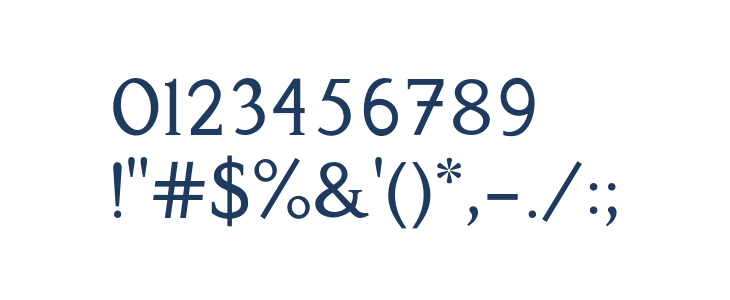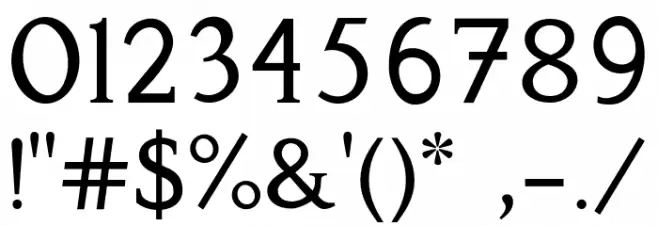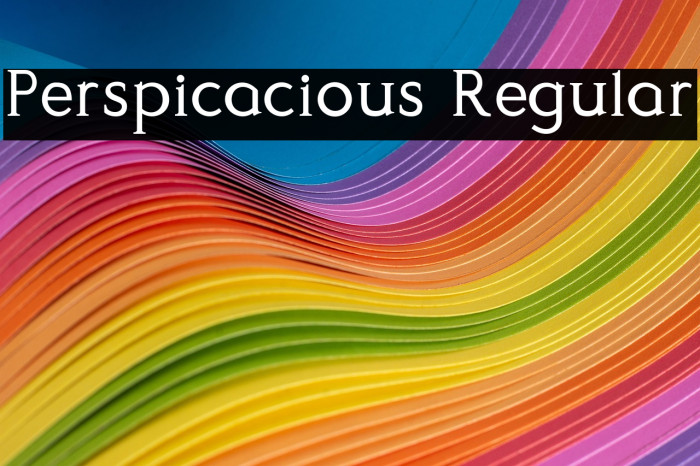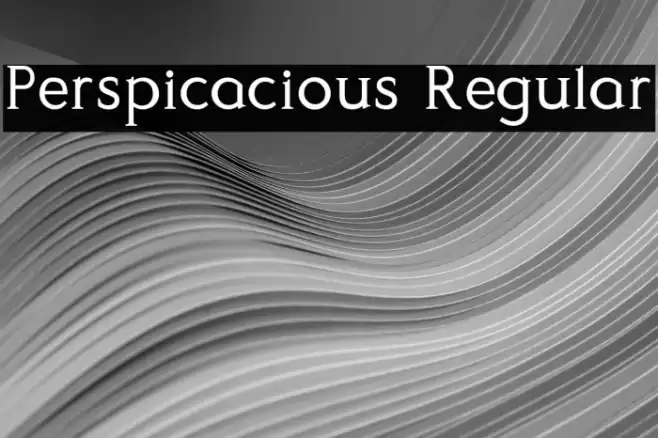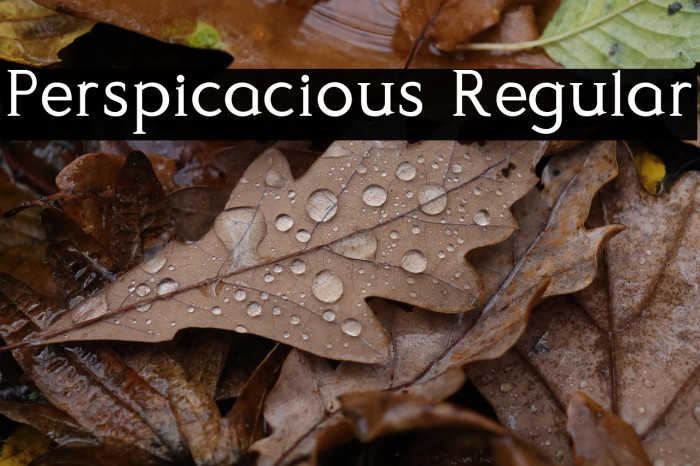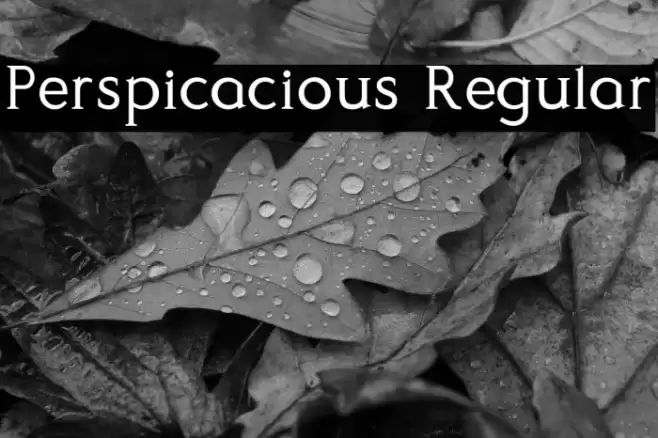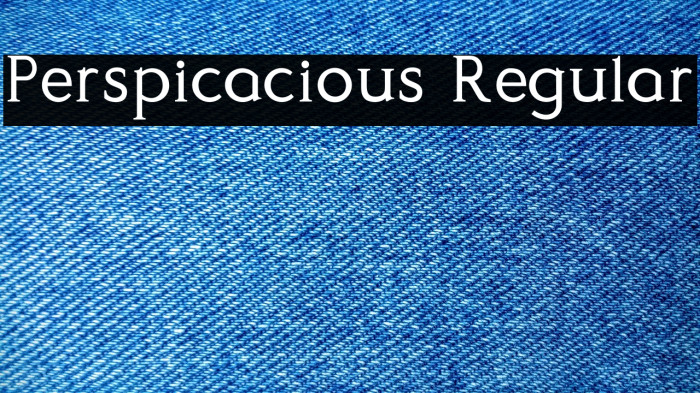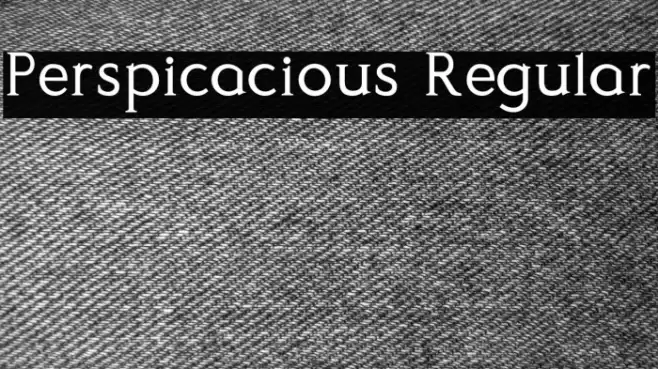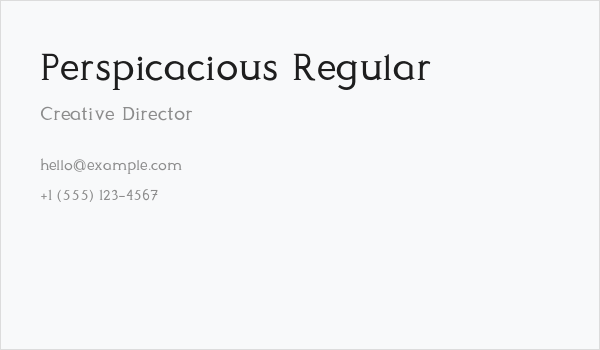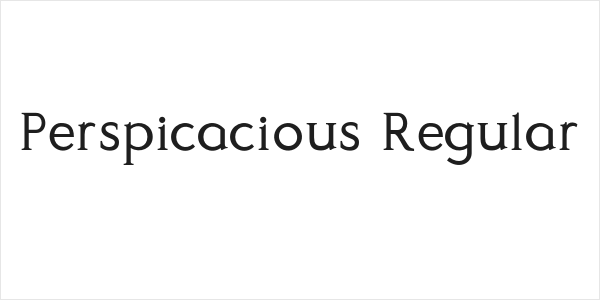
Perspicacious Regular Font
Perspicacious Regular Description
This typeface features a classic serif design with a modern twist, characterized by its elegant and refined appearance. The uppercase letters are bold and commanding, while the lowercase letters maintain a graceful flow. The numerals are well-proportioned, ensuring readability and balance. Special characters are distinct and harmonize well with the overall style. The font's clean lines and subtle serifs make it versatile for various design needs, from formal documents to creative projects.
| Proposed Projects | Ideal for editorial design, branding, book covers, and formal invitations. |